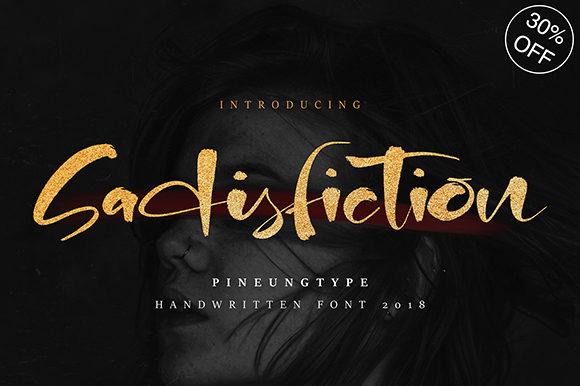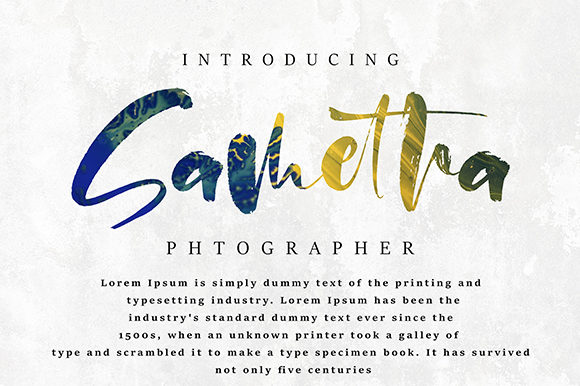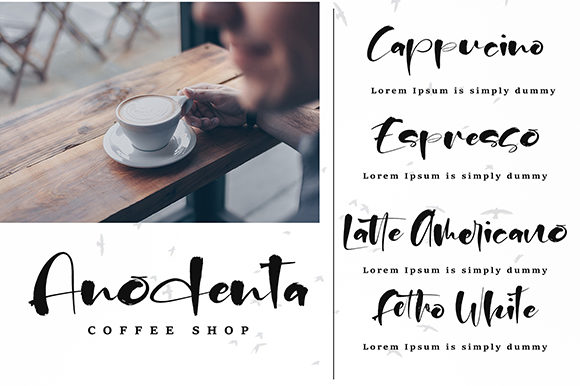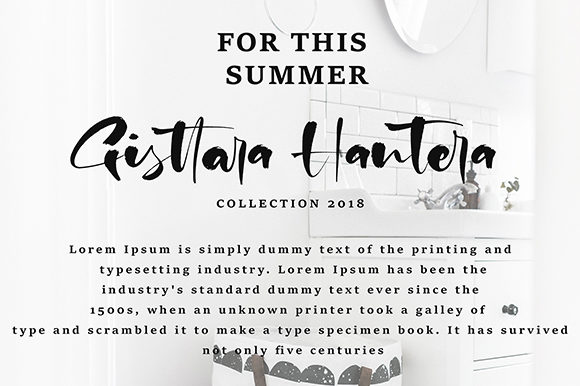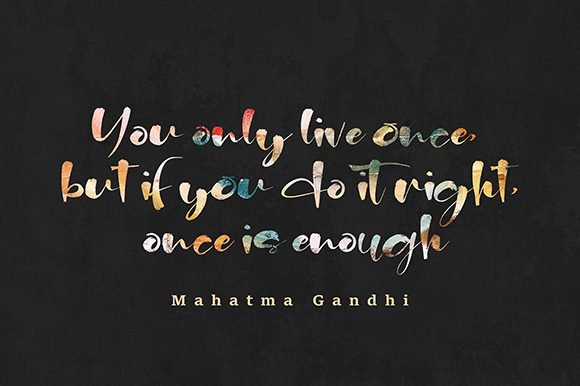
HomeScript FontsSadisfiction Font Script Fonts Sadisfiction Font FacebookXPinterestWhatsApp Sadisfiction Font Poster 2 Sadisfiction Font Poster 3 Sadisfiction Font Poster 4 Sadisfiction Font Poster 5 About Sadisfiction Font Sadisfiction is an elegant and bold handwritten font with a unique feel. DOWNLOAD ON CREATIVE FABRICAThis font is sold and delivered by Creative Fabrica. Font Canyon may earn a commission if you buy through this link. People also explored Article Font Noah Professional Edition Font Arabesque Christmas Ornament Font Strong Farmhouse Duo Font Alexiss Font Ageless Font Frog Font Mellani Font 331 0 TagsSadisfiction Font Previous articleMetters FontNext articleComixs Duo Font LEAVE A REPLY Cancel reply Comment: Please enter your comment! Name:* Please enter your name here Email:* You have entered an incorrect email address! Please enter your email address here Website: Save my name, email, and website in this browser for the next time I comment. Personal Use Free Catandra Script Personal Use Free Read more about this font Densmore Personal Use Free Read more about this font A New Nattyla Personal Use Free Read more about this font Rellista Script Personal Use Free Read more about this font BLOG Exploring Font Trends Shaping Communication in the Digital Era Fonts, like all design elements, are subject to trends. They play a crucial role in communicating a brand's personality,... Top 7 Google Fonts Alternatives for Faster and Privacy-Friendly Web Design (2025) Free Fonts Risk: Why Free Fonts Can Be Dangerous for Designers Best Fonts for T-Shirt Design – Top 2025 Picks